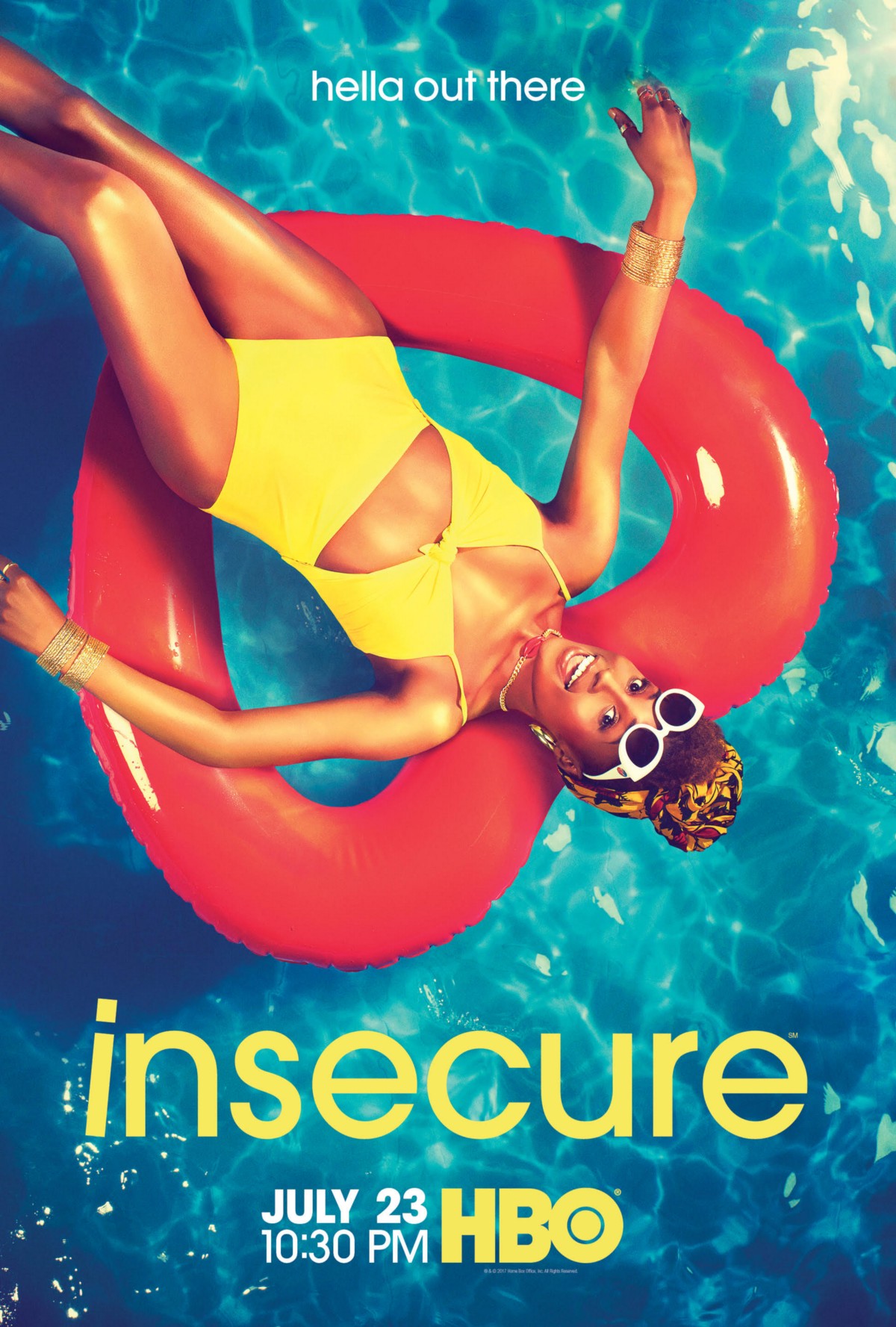
Insecure [TV Show] Font
ComedyInsecure is a critically acclaimed HBO comedy-drama series that follows the lives and relationships of two best friends, Issa and Molly, as they navigate their professional and personal lives in Los Angeles. The title font for the "Insecure" TV series is ITC Avant Garde Gothic Medium, which is based on the logo font used in the Avant Garde magazine.